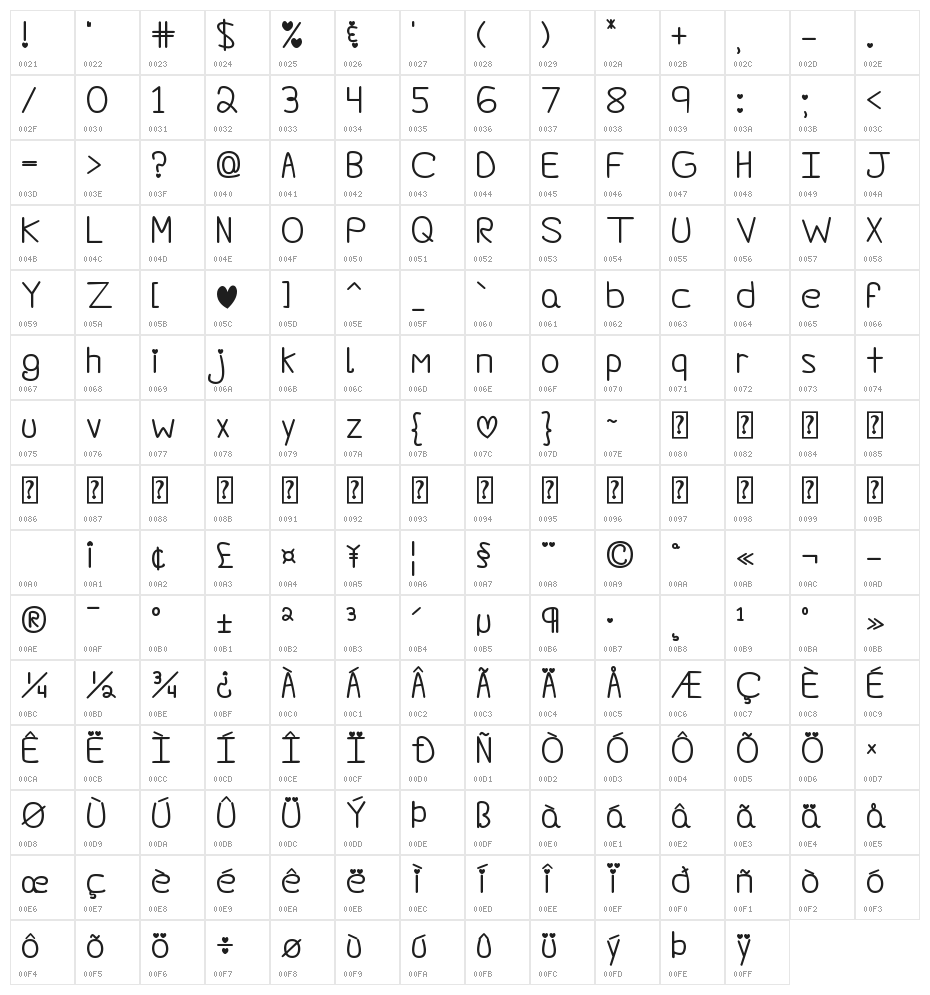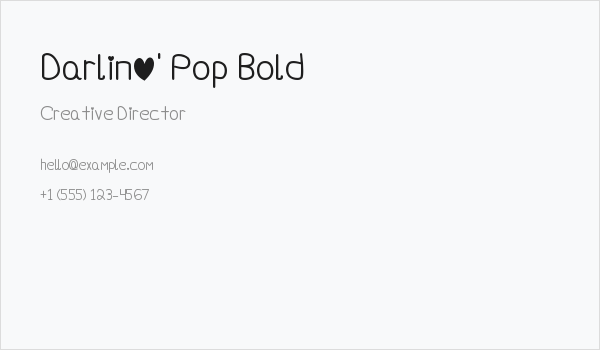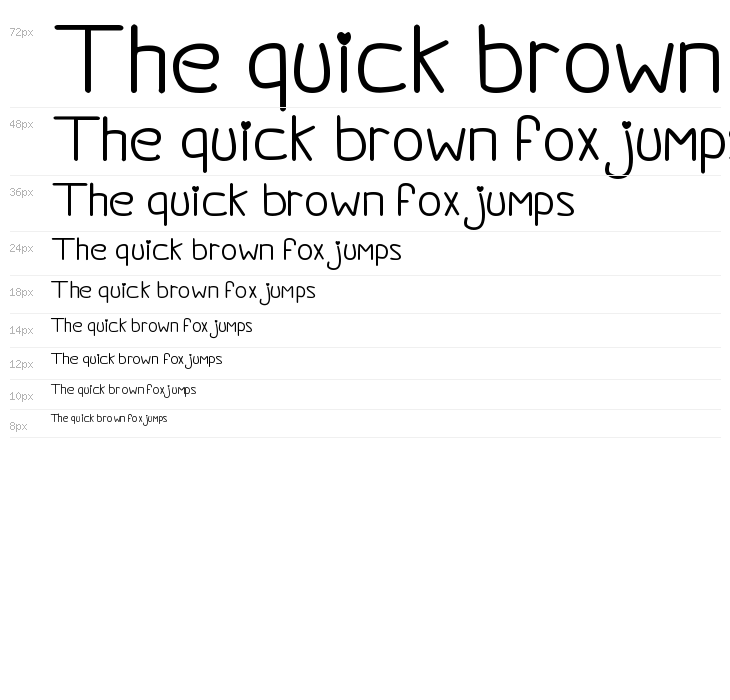
Darlin' Pop Bold Font
Darlin' Pop Bold Description
This playful and whimsical font features rounded, bubbly characters with a friendly and approachable style. The letters are evenly spaced with a consistent stroke width, giving it a clean and modern appearance. The font includes both uppercase and lowercase letters, numerals, and a variety of special characters, making it versatile for different design needs. Its unique charm is enhanced by subtle embellishments, like the heart-shaped dots on the lowercase 'i' and 'j', adding a touch of fun and creativity.
Overall StylePlayful, Modern
Proposed ProjectsIdeal for children's books, playful branding, greeting cards, and creative posters.